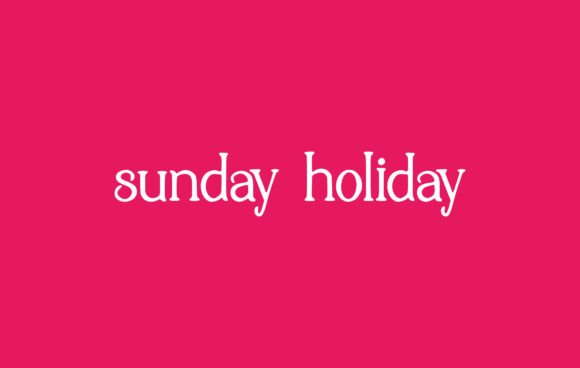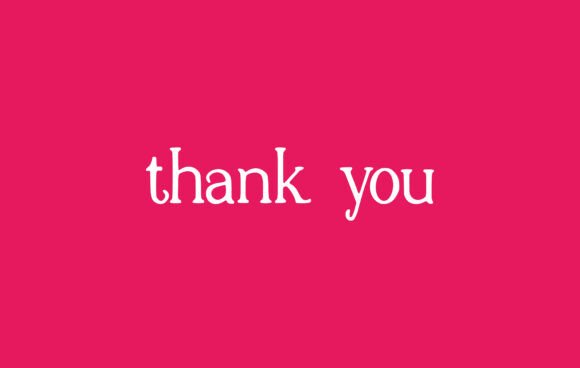
Dripstorm Font: Elevate Your Designs with a Romantic Handwritten Touch
In the world of typography, a well-crafted font can make all the difference in bringing your creative ideas to life. If you’re a designer, craft, or simply someone who appreciates the art of beautiful writing, then you’re in for a treat. Introducing Dripstorm Font, an authentic handwritten font with a romantic touch that’s sure to capture your heart. In this article, we’ll dive into the features, benefits, and uses of Dripstorm Font, and explore how it can elevate your designs to new heights.
A True Favorite: The Design Behind Dripstorm Font
Dripstorm Font is more than just a pretty face; it’s a meticulously designed typeface that exudes elegance and sophistication. With its flowing lines, delicate curves, and whimsical flair, this font is expertly crafted to be a true favorite among designers and crafters alike. Whether you’re looking to add a touch of romance to your wedding invitations, create eye-catching social media graphics, or simply want to elevate your branding, Dripstorm Font is the perfect choice.
Legibility and Versatility: The Key to Dripstorm Font’s Success
One of the standout features of Dripstorm Font is its exceptional legibility. Whether you’re using it as a title or body text, this font is easy to read and understand, making it perfect for a wide range of applications. From magazine headlines to business cards, Dripstorm Font looks great in any context, and its versatility is unmatched. Whether you’re a seasoned designer or a DIY crafter, you’ll love how easily you can incorporate Dripstorm Font into your workflow.
Endless Design Possibilities: Where to Use Dripstorm Font
So, where can you use Dripstorm Font? The possibilities are endless! Here are just a few ideas to get you started:
- Magazine Headlines: Add a touch of glamour to your magazine spreads with Dripstorm Font. Its elegant curves and flowing lines make it perfect for titles, headings, and pull-quotes.
- Social Media Graphics: Take your social media game to the next level with Dripstorm Font. Use it to create eye-catching graphics, quotes, and promotions that will engage your audience.
- Branding: Establish your brand’s identity with Dripstorm Font. Its unique and recognizable style will help you stand out from the competition and leave a lasting impression.
- Wedding Invitations: Make your wedding invitations truly special with Dripstorm Font. Its romantic and whimsical touch will set the tone for a beautiful and unforgettable celebration.
- Cards and Stationery: Add a personal touch to your cards, letters, and stationery with Dripstorm Font. Its elegant and cursive style is perfect for expressing your thoughts and feelings.
Why Choose Dripstorm Font?
With so many fonts available, why choose Dripstorm Font? Here are just a few reasons why designers and crafters love this authentic handwritten font:
- Unique and Authentic: Dripstorm Font is a one-of-a-kind typeface that’s been carefully crafted to stand out from the crowd.
- Romantic and Whimsical: With its flowing lines and delicate curves, Dripstorm Font adds a touch of romance and whimsy to any design.
- Legible and Versatile: Whether you’re using it as a title or body text, Dripstorm Font is easy to read and understand, making it perfect for a wide range of applications.
In conclusion, Dripstorm Font is a beautiful and authentic handwritten font that’s perfect for designers, crafters, and anyone looking to add a touch of romance and whimsy to their designs. With its exceptional legibility, versatility, and unique style, Dripstorm Font is sure to become a true favorite in your typography collection. So why wait? Download Dripstorm Font today and take your creative ideas to new heights!